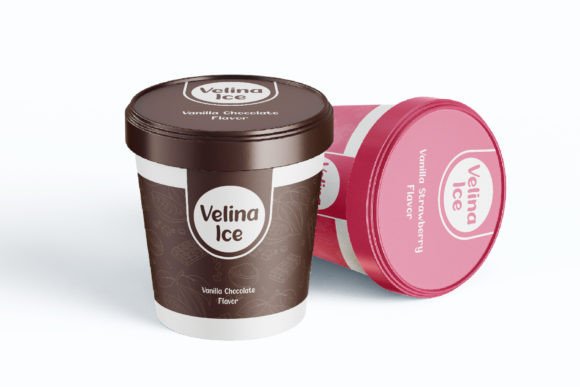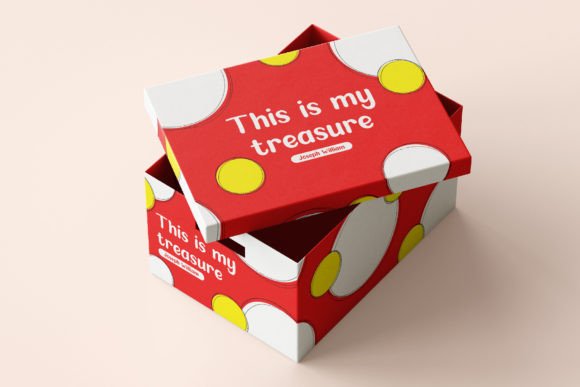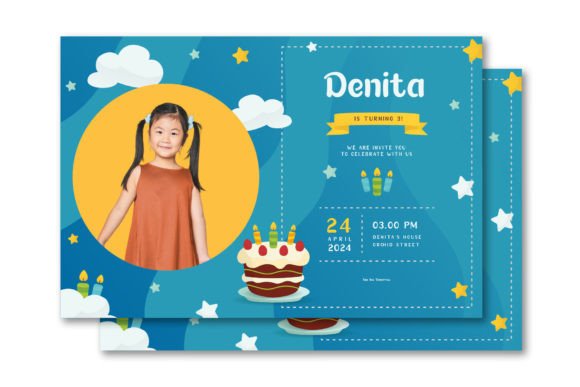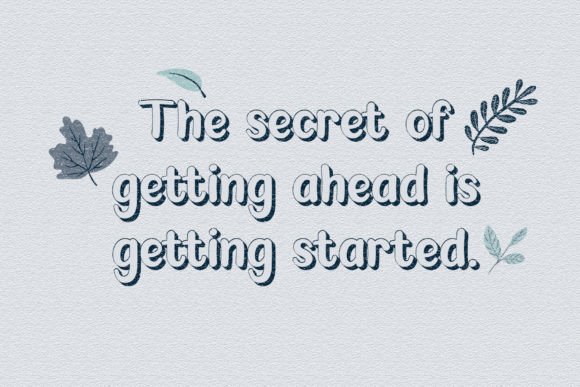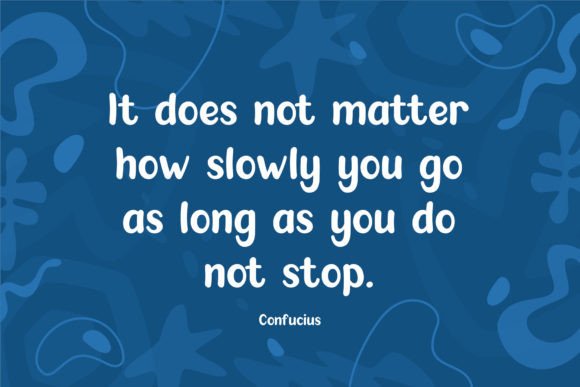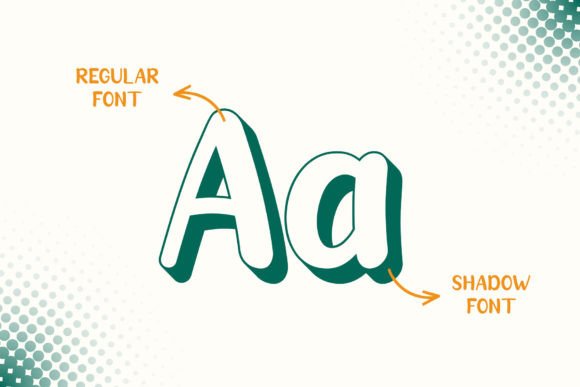
Bampy Blume Font: The Perfect Addition to Your Design Arsenal
In the world of typography, fonts play a crucial role in conveying the tone and personality of a design. Whether you’re working on a children’s project, a school assignment, or a crafty endeavor, the right font can make all the difference. That’s where Bampy Blume comes in – a fun display font that’s playful, fresh, and sure to delight. In this article, we’ll dive into the world of Bampy Blume, exploring its features, benefits, and uses, as well as provide tips on how to make the most of this fantastic font.
What is Bampy Blume Font?
Bampy Blume is a display font designed to add a touch of whimsy and fun to your designs. Its playful and fresh aesthetic makes it an ideal choice for projects aimed at children or schools. The font’s stylish alternations and ligatures give it a unique personality, setting it apart from more traditional fonts. With Bampy Blume, you can add a dash of creativity and imagination to your work, making it perfect for a wide range of applications.
Key Features of Bampy Blume Font
- Playful and Fresh Design: Bampy Blume boasts a fun and lively design that’s sure to capture the attention of your audience.
- Stylish Alternations and Ligatures: The font’s alternations and ligatures add a touch of sophistication and elegance, making it perfect for a wide range of projects.
- Display Font: Bampy Blume is designed as a display font, making it ideal for headlines, titles, and other prominent text elements.
- Children and School Projects: The font’s playful design makes it an excellent choice for projects aimed at children or schools.
Benefits of Using Bampy Blume Font
So, why choose Bampy Blume for your next project? Here are just a few benefits of using this fantastic font:
- Adds Creativity and Imagination: Bampy Blume’s playful design injects a dose of creativity and imagination into your work, making it perfect for projects that require a touch of whimsy.
- Versatile: Despite its playful design, Bampy Blume is surprisingly versatile, making it suitable for a wide range of projects, from children’s books to school posters.
- Easy to Read: Despite its decorative nature, Bampy Blume remains easy to read, making it perfect for use in titles, headings, and other prominent text elements.
Tips for Using Bampy Blume Font
To get the most out of Bampy Blume, here are a few tips to keep in mind:
- Pair with a Simple Font: For maximum impact, pair Bampy Blume with a simple, sans-serif font to create visual contrast.
- Use for Headings and Titles: Bampy Blume is designed for display use, making it perfect for headings, titles, and other prominent text elements.
- Experiment with Colors and Textures: Don’t be afraid to experiment with different colors and textures to add depth and interest to your design.
Who Can Benefit from Bampy Blume Font?
Bampy Blume is an excellent choice for a wide range of designers and crafters, including:
- Graphic Designers: Add a touch of whimsy to your designs with Bampy Blume’s playful and fresh aesthetic.
- Teachers and Educators: Create engaging and fun educational materials with Bampy Blume’s child-friendly design.
- Crafters and Scrapbookers: Add a personal touch to your crafts and scrapbooking projects with Bampy Blume’s unique and playful design.
| Font Name | Bampy Blume Font |
| Author | Idea Studio |
In conclusion, Bampy Blume is a fantastic font that’s sure to add a touch of fun and creativity to your designs. With its playful and fresh aesthetic, stylish alternations and ligatures, and versatility, Bampy Blume is the perfect partner for any project. Whether you’re a graphic designer, teacher, or crafter, Bampy Blume is an excellent choice for adding a dash of whimsy and imagination to your work. So why not give it a try and see the difference it can make?